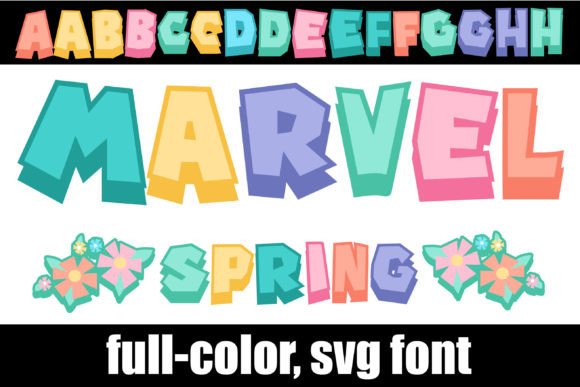
Immerse yourself in a world of vibrant and playful designs with Marvel Spring Font, the ultimate font family for your creative explorations. Inspired by the beauty of spring, this full-color font bursts with a lively palette of hues, inviting you to add a touch of whimsy and charm to your digital creations.
With its blocky lettering rendered in a delightful array of colors, Marvel Spring Font is like a breath of fresh air for your design projects. Each character dances with a vibrant energy, bringing life to your words and making them pop off the screen. Whether you're crafting eye-catching logos, whimsical invitations, or enchanting social media posts, this font is your ticket to captivating designs that leave a lasting impression.
Unleash a symphony of colors with Marvel Spring Font and unveil a hidden floral arrangement by typing the greater than and less than glyphs. Watch as delicate blossoms and flourishing vines intertwine, adding an extra layer of enchantment to your creations. Let your imagination run wild and explore endless possibilities, transforming ordinary words into captivating works of art.
For those seeking a splash of extra vibrancy, delve into the font's alt version, accessible through your system's character map. Discover a treasure trove of additional colors for each letter, allowing you to customize your designs and create truly unique and personalized expressions.
Don't let ordinary fonts stifle your creativity. Embrace the colorful world of Marvel Spring Font and embark on a journey of visual delight. Let your designs blossom with vibrancy and originality, leaving an indelible mark on the hearts and minds of your audience.